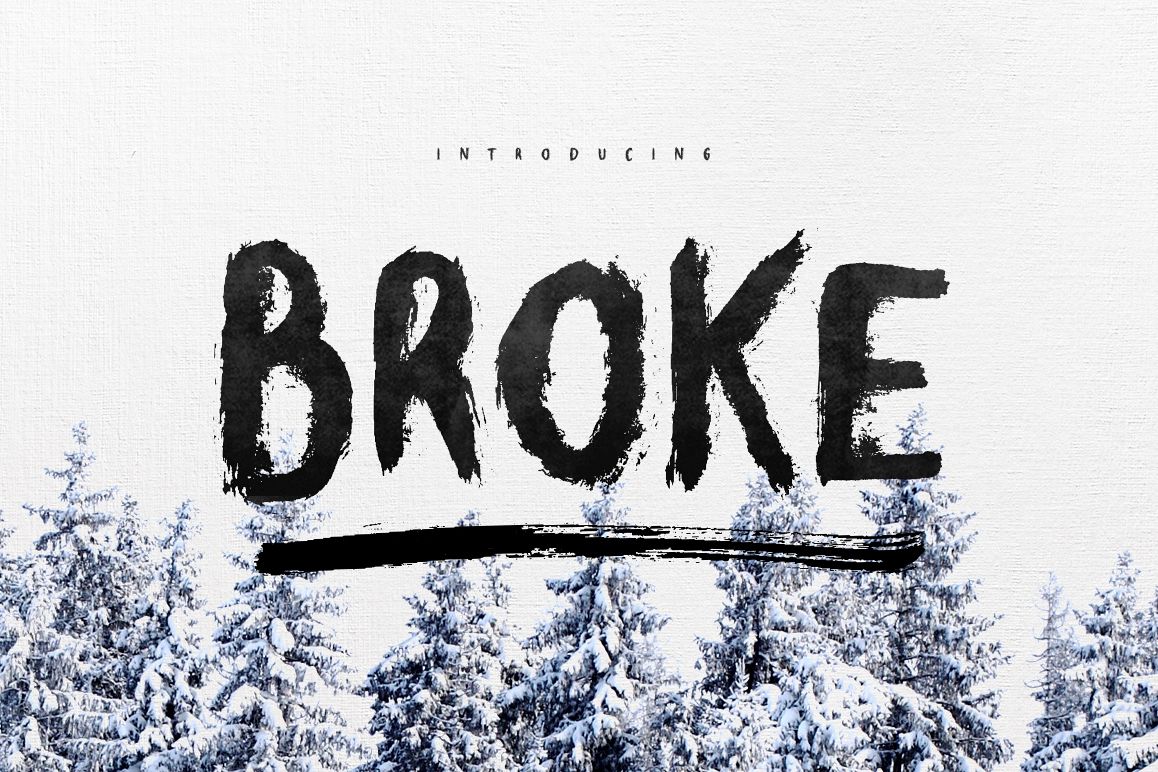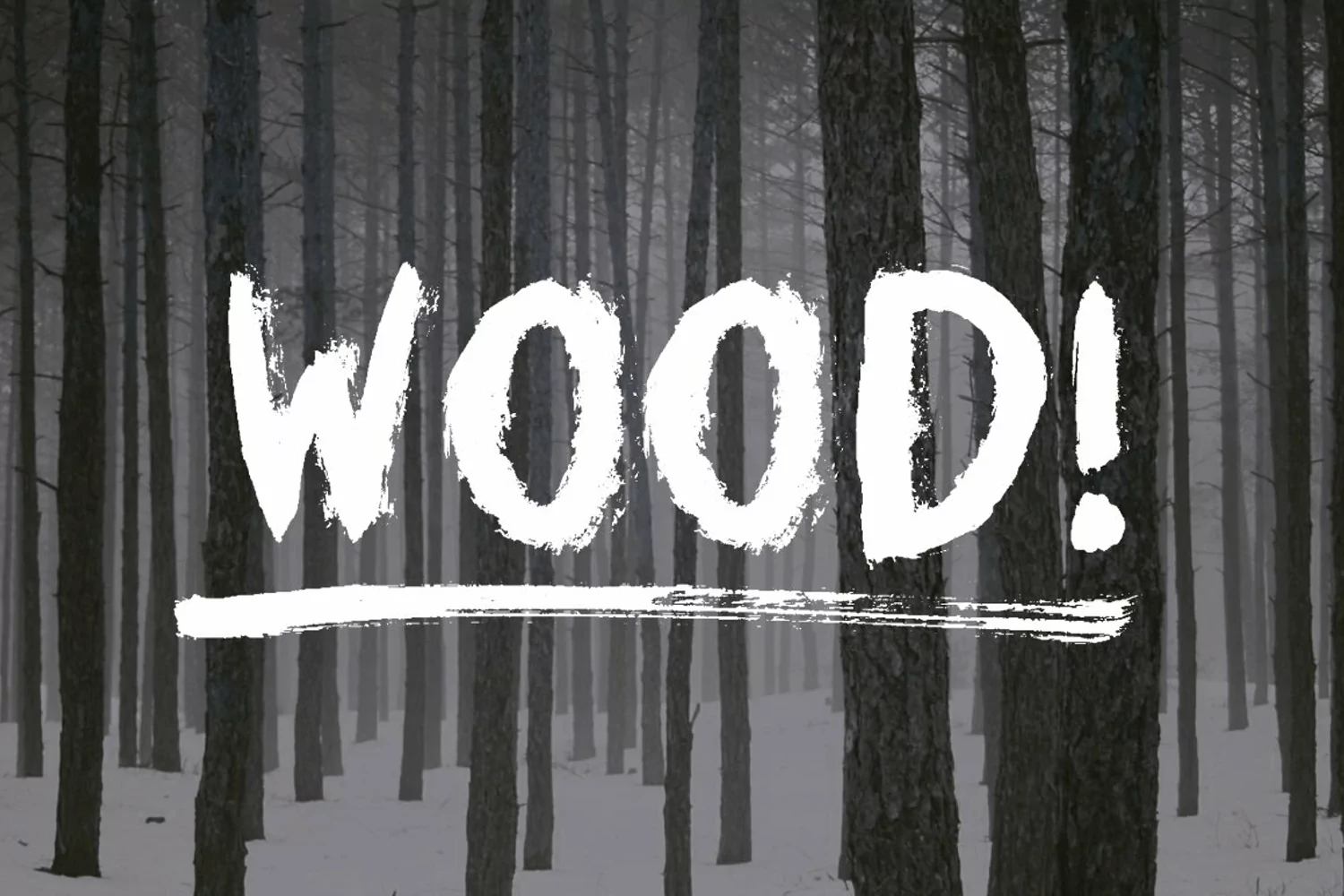
Broke Brush Font
Give your designs an authentic brush handcrafted feel. "Broke Typeface" is perfectly suited to stationery, logos and much more.Included: